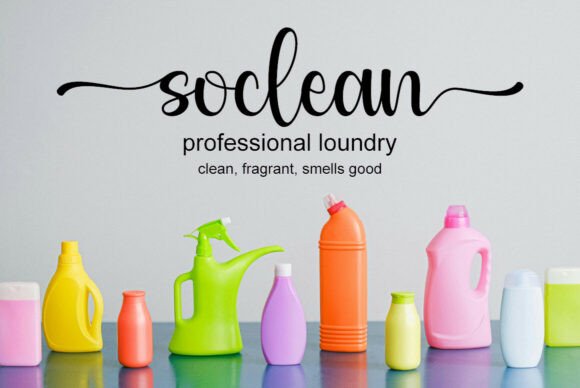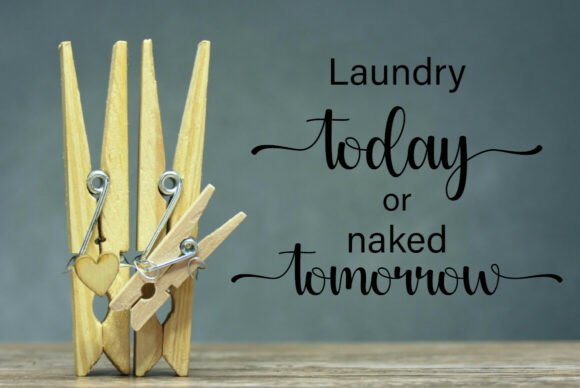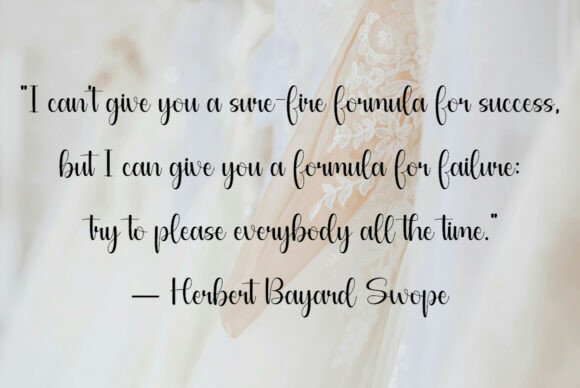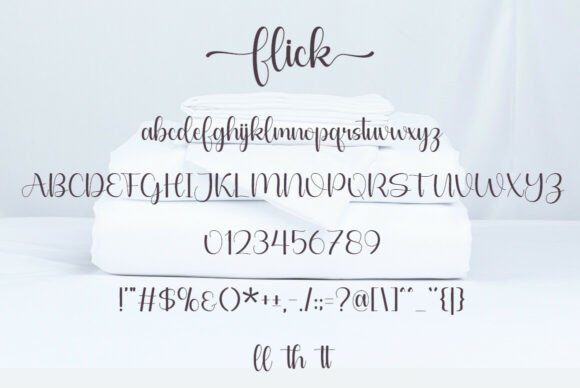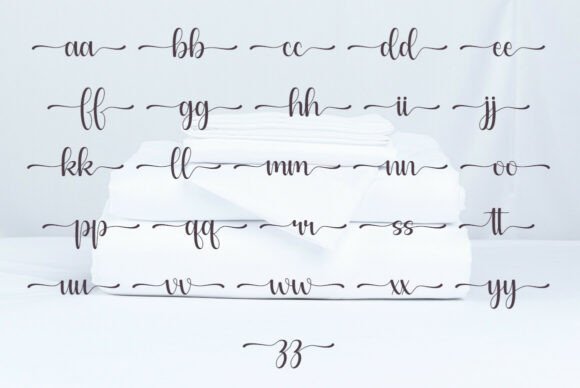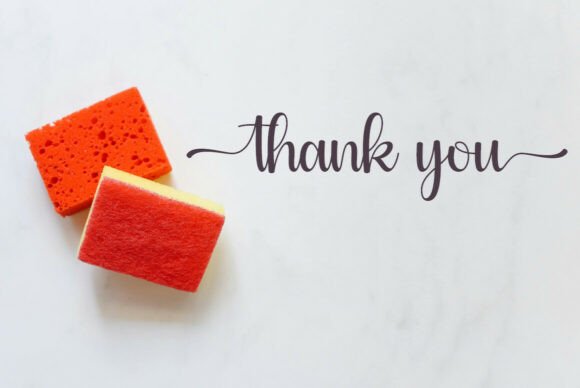
The Elegance of Flick Font: A Designer’s New Best Friend
I’ll never forget the time I was working on a wedding invitation project, and my client asked for a font that was “elegant, yet playful.” I scoured the internet, tried out dozens of fonts, but nothing seemed quite right. That was until I stumbled upon Flick Font. ✨ This stylish and incredibly elegant handwritten font has since become a staple in my design toolkit, and I’m excited to share its beauty with you.
An Honest Review of Flick Font
• ✨ Elegant and sophisticated, perfect for wedding invitations, thank you cards, and greeting cards
• ✅ PUA encoded for easy access to glyphs and alternates
• 💫 Highly versatile, suitable for logos, business cards, and more
• 🎨 Beautifully crafted with a personal touch
While Flick Font is an excellent choice for many projects, there are a few things to keep in mind: 🤔
• ⚠️ Some users may find the font a bit too ornate for very formal or traditional designs
• ⚠️ As with any script font, readability can be an issue at very small sizes
The Story Behind Flick Font
Flick Font was designed with the intention of creating a beautiful, elegant script font that would add a personal touch to any design project. Inspired by classic handwritten fonts, Flick Font’s creator aimed to craft a font that was both sophisticated and approachable. 💫
Q: What is PUA encoding, and how does it benefit me?
A: PUA (Private Use Area) encoding allows for easy access to glyphs and alternates, making it simple to customize your text and add a personal touch to your designs.
Q: Is Flick Font suitable for body text?
A: While Flick Font is beautiful, it’s primarily designed for display text. For body text, you may want to choose a font with better readability.